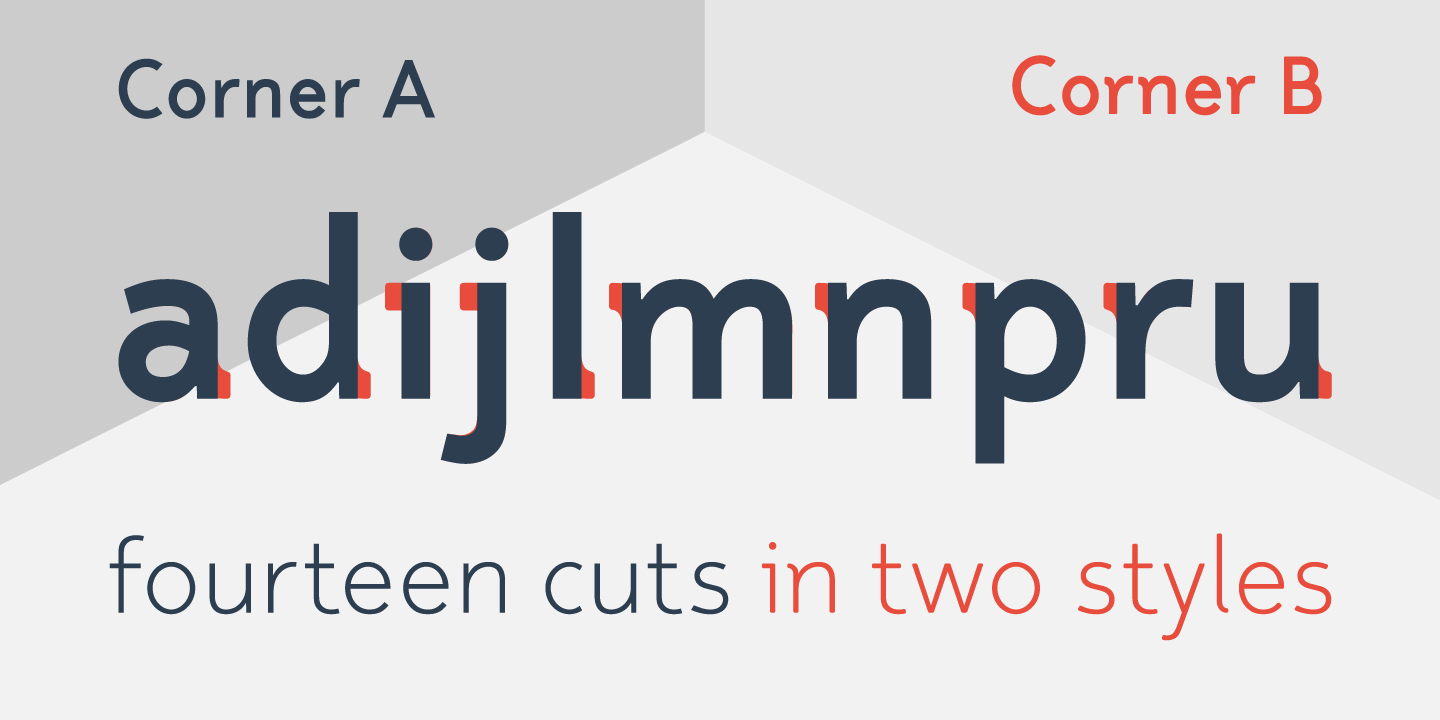
The Corner Font is an excellent choice for designs that aim for a sharp, modern, and often geometric or architectural aesthetic. Imagine it forming the crisp headlines of a contemporary design magazine, bringing a precise and structured feel to architectural blueprints, or enhancing the user interface of an innovative app. It's also perfectly suited for sleek corporate branding, impactful presentations, technical manuals, and any project where you want to convey a sense of accuracy, strength, and a streamlined, angular look. Its often sharp angles, clean lines, and balanced proportions make it ideal for conveying clarity and a cutting-edge feel.
What makes the Corner Font so exciting is its remarkable blend of simplicity and distinctive precision. It frequently features well-defined letterforms with a strong emphasis on corners and straight lines, giving it a unique visual texture and a powerful graphic presence. This font has an intelligent and sophisticated personality that can instantly elevate your design, making it feel both modern and remarkably efficient. It’s designed to provide excellent readability in various applications, ensuring your message is not just seen, but effortlessly absorbed with a sense of refined utility.
The Corner Font family typically includes a range of weights, from a delicate thin that emphasizes its sharp structure to a more substantial regular or bold for stronger emphasis. This versatility allows designers to create nuanced visual hierarchies and add dynamic contrast within their typography. With its broad character set, it often supports multiple languages, further expanding its global applicability for various tech and modern design projects. Discover the crisp precision of Corner Font Free Download for your next innovative endeavor.